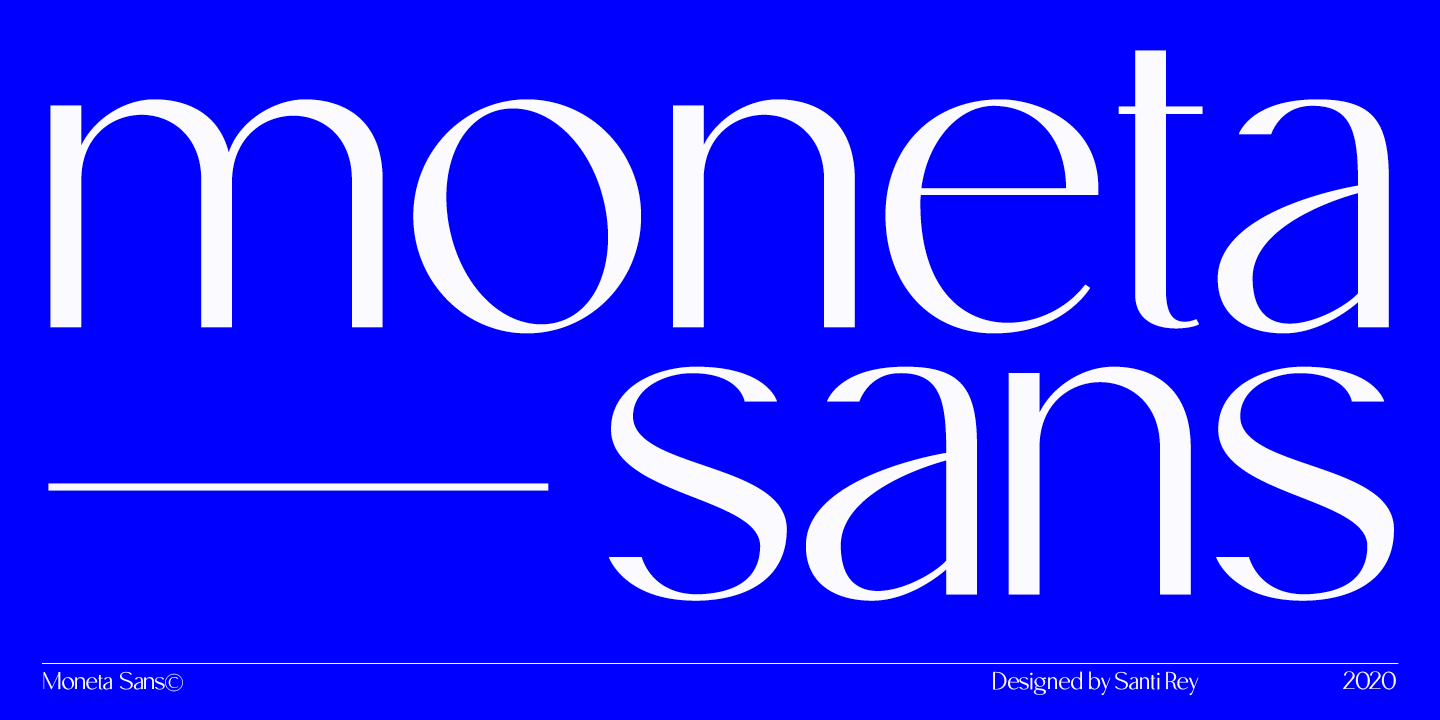
Moneta Sans Font is perfect for financial institution branding, banking applications, investment firm communications, cryptocurrency platforms, financial reports, economic publications, monetary policy documents, fintech startup logos, accounting software interfaces, and any projects that require trustworthy typography with economic authority and financial credibility.
What makes Moneta Sans Font exciting is its authoritative design that embodies the stability and trustworthiness essential to financial communications with clean, precise letterforms that inspire confidence in monetary matters. This professional typeface features balanced proportions and excellent legibility that convey reliability and fiscal responsibility, making complex financial information accessible and trustworthy. The font's monetary character makes it perfect for financial institutions seeking to communicate security, expertise, and the solid foundation that clients expect from their financial partners.
Moneta Sans Font family includes comprehensive financial-grade weights featuring thin, light, regular, medium, bold, and black options. The font family also offers italic versions with professional characteristics, along with condensed variants optimized for data-heavy financial applications. Special features include tabular figures, currency symbols, mathematical operators, and specialized financial notation that ensures accurate presentation of numerical data and monetary information.